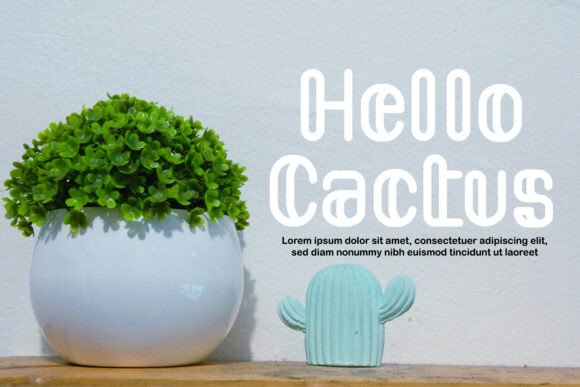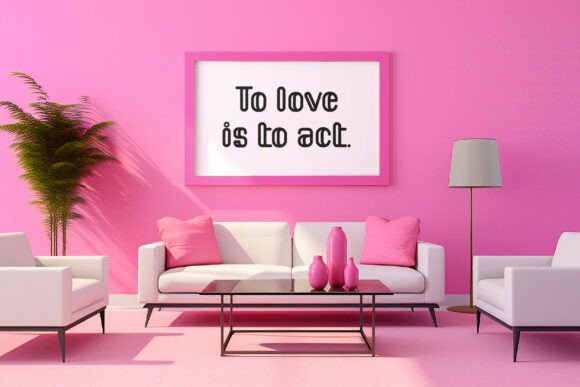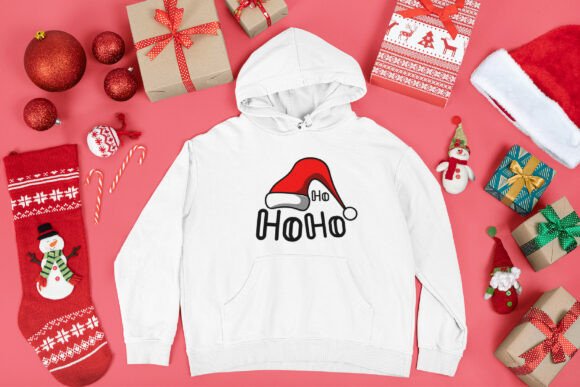
Introduction to Ho Ho Holly Jolly Font
There’s something magical about the holiday season, isn’t there? The twinkling lights, the cozy atmosphere, and the joy that fills our hearts. As designers, we’re always on the lookout for the perfect design resource to capture the essence of this special time of year. And that’s exactly where the Ho Ho Holly Jolly Font comes in – a delightful, whimsical Christmas display font that’s sure to bring a smile to your face.
With its unique, rounded, tubular structure and bold, friendly weight, the Ho Ho Holly Jolly Font is the perfect addition to any creative project. Whether you’re working on a Christmas card, a digital sticker, or a seasonal apparel design, this font is sure to add a dash of modern, adorable, and joyful flair to your work. And the best part? It’s available for free download, making it a valuable resource for designers of all levels.
Key Features of Ho Ho Holly Jolly Font
- High-quality design resource ideal for creative projects, especially Christmas and holiday-themed designs.
- Unique, hand-drawn design with a transparent background, allowing for easy layering and customization in your design projects.
- Perfect for use in graphic design, digital art, and other creative pursuits, thanks to its high resolution and crisp typography.
- Great for adding a festive touch to your designs, with its bold, playful, and whimsical style that’s sure to bring a smile to your audience’s faces.
- Designed to be versatile and adaptable, making it an excellent addition to any designer’s toolkit, whether you’re working on a personal or professional project.
Honest Review: Ho Ho Holly Jolly Font
One of the standout features of this font is its high-quality design, which is perfect for creative projects that require a touch of elegance and sophistication. The transparent background makes it easy to overlay the text on various images, and the font’s versatility ensures that it can be used in a wide range of applications.
Here are some of the things that work well with the Ho Ho Holly Jolly Font:
- ✨ Transparent background for easy text overlay
- ✨ Versatile and can be used in various applications
- ⚠️ Limited character set, which may not be ideal for longer text
- ⚠️ May not be suitable for all types of design projects, particularly those that require a more modern or edgy look
Overall, I’m quite pleased with the Ho Ho Holly Jolly Font, and I would definitely consider using it again in the future. It’s a great addition to any designer’s toolkit, and I’m happy to recommend it as a design resource for holiday-themed projects.
How to Use Ho Ho Holly Jolly Font
Some tips for getting the most out of the Ho Ho Holly Jolly Font include using it for holiday-themed designs, creating festive invitations, and adding a touch of whimsy to your designs. Common use cases for the font include creating holiday cards, designing party decorations, and adding a playful touch to your website or blog.